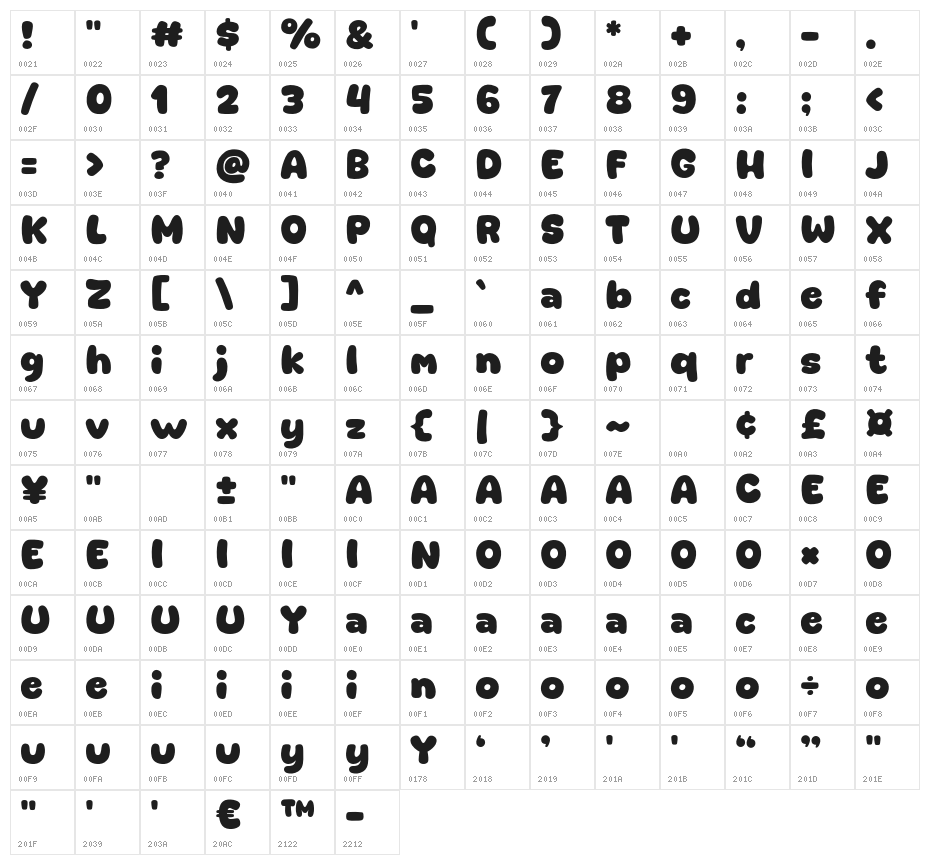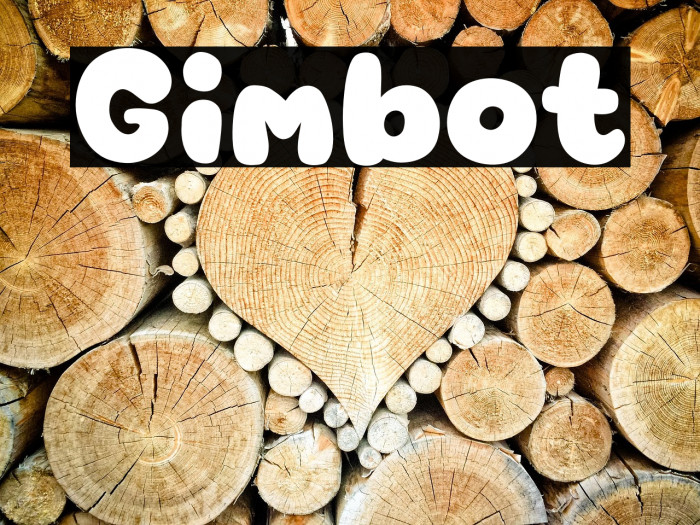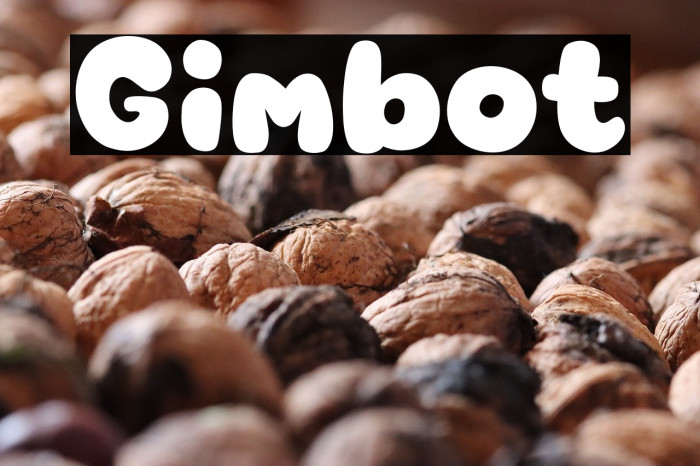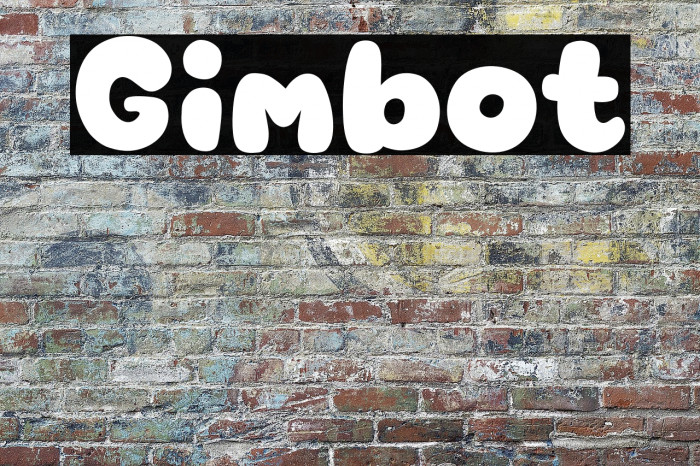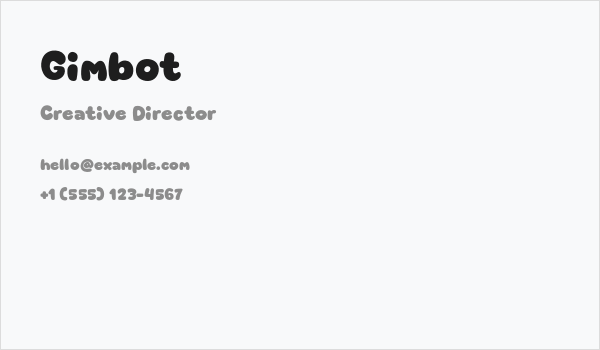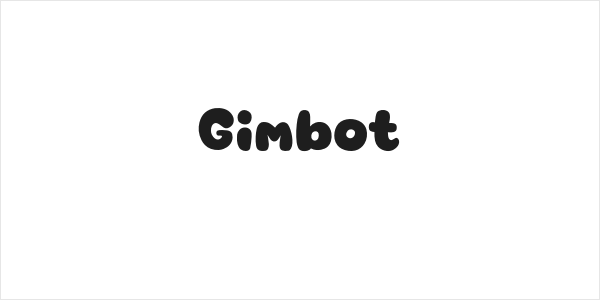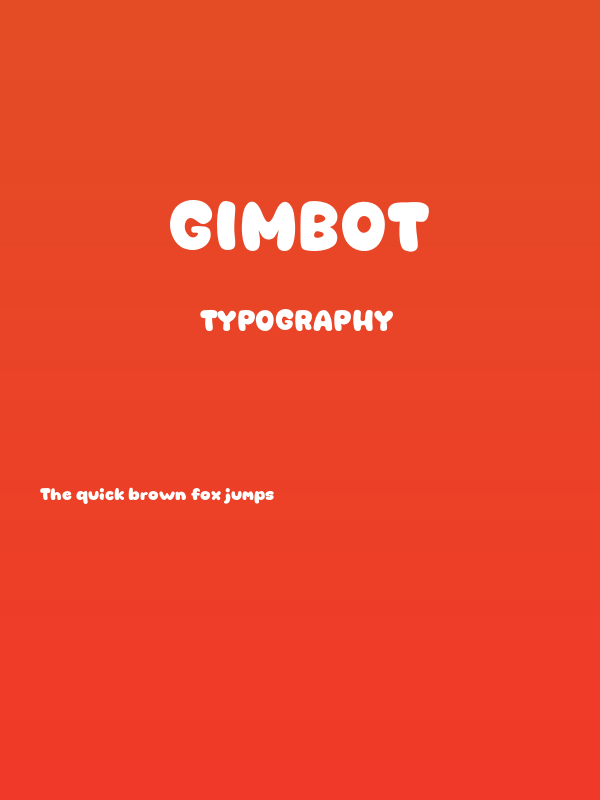
Gimbot Font
Gimbot Description
This font features a playful and rounded design, characterized by its bold and bubbly appearance. The letters are thick with smooth curves, giving it a friendly and approachable feel. The uniformity in stroke width across all characters contributes to a cohesive look, while the rounded edges soften the overall aesthetic. The font maintains a consistent weight throughout, ensuring readability despite its decorative style. Its whimsical nature makes it suitable for projects that require a fun and informal touch.
| Proposed Projects | Ideal for children's books, playful branding, party invitations, and casual social media graphics. |